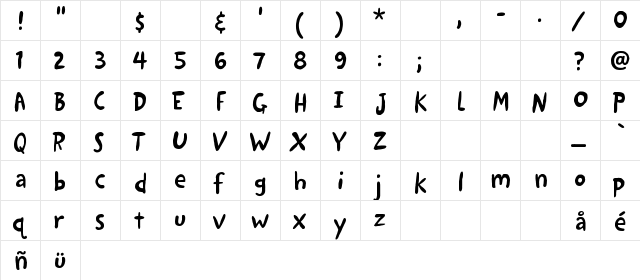
PahtooieOneSolidPKA Regular
Design Context for PahtooieOneSolidPKA Typeface
PahtooieOneSolidPKA takes a measured approach to typography — its balanced proportions and neutral character make it a reliable workhorse for both digital and print work.